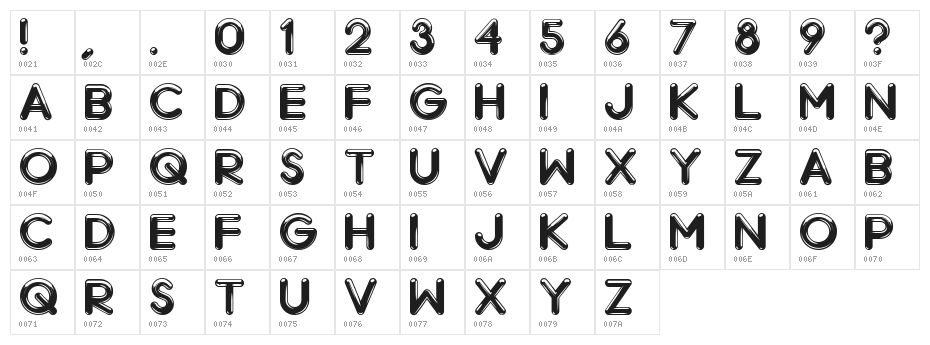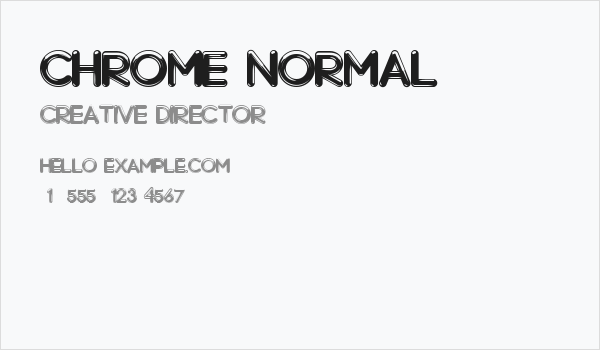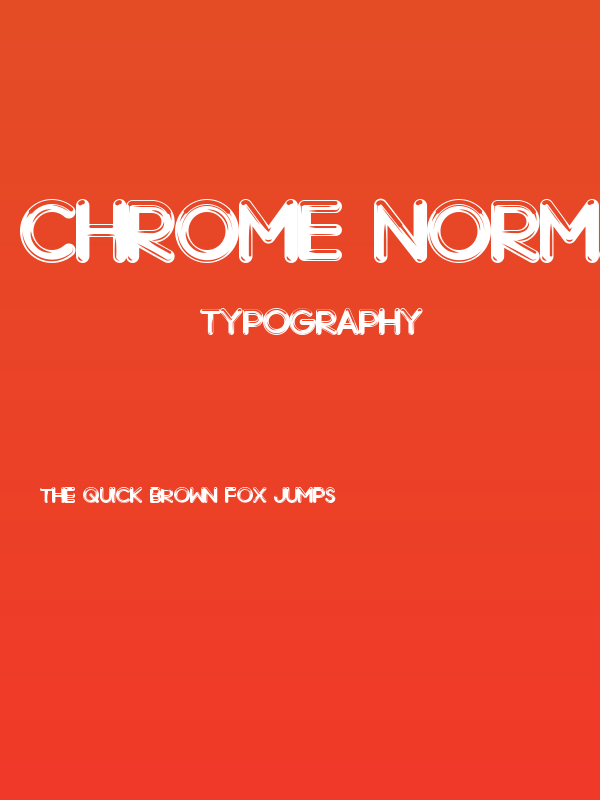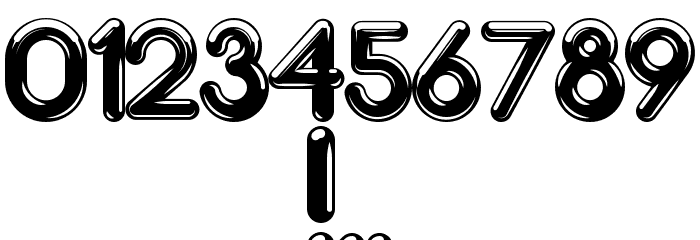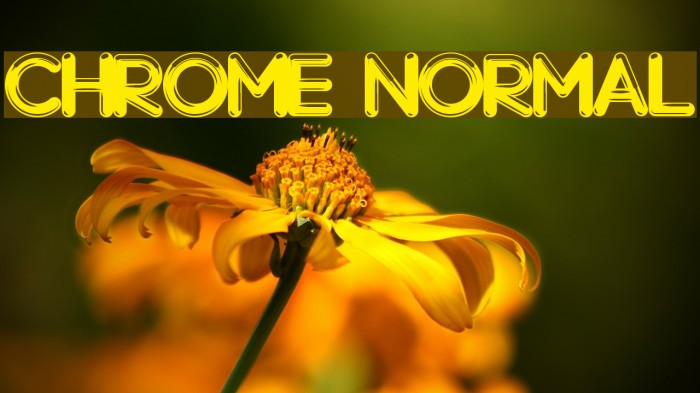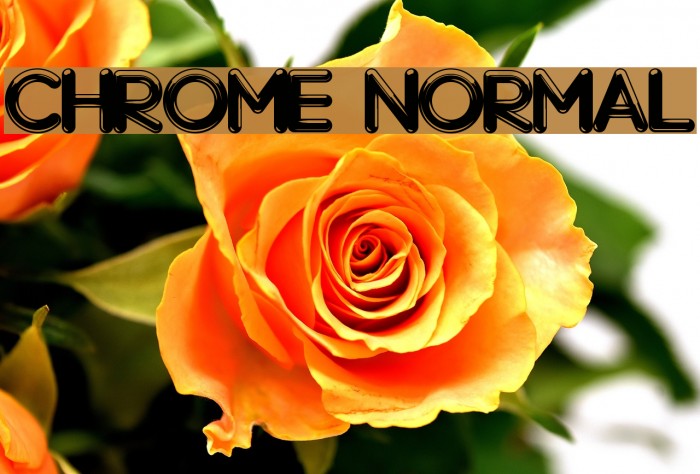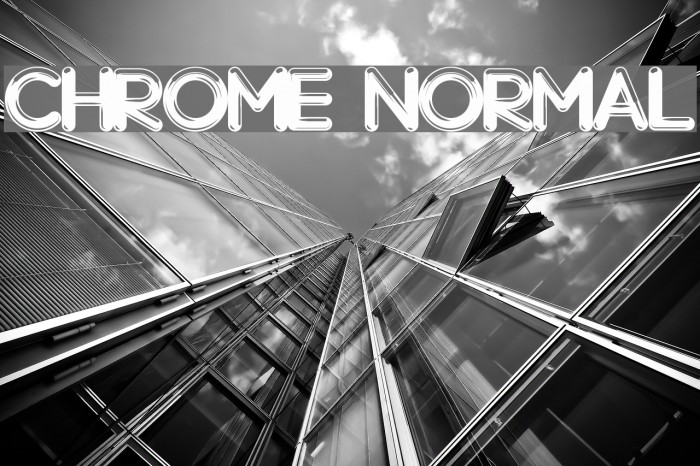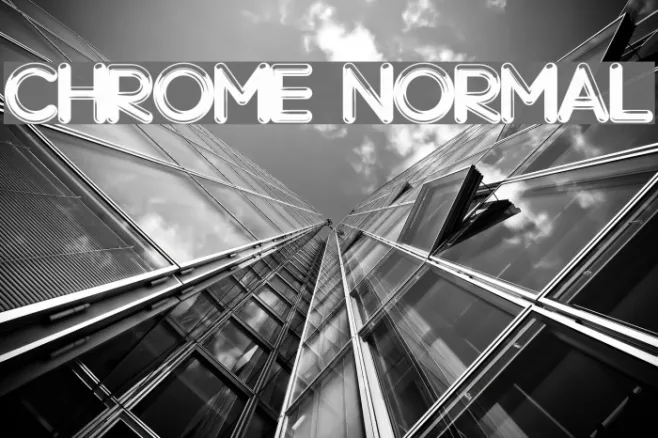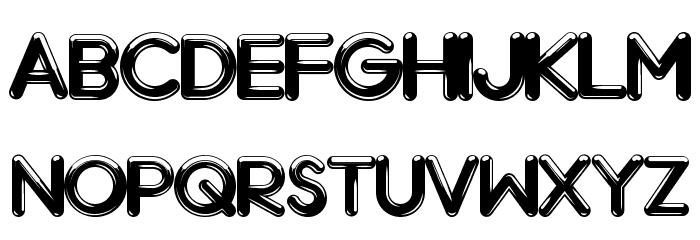
Chrome Normal Font
Chrome Normal Description
This font features a bold and striking design with a three-dimensional chrome effect that gives it a shiny, metallic appearance. The characters are uppercase and numerals, with a smooth, rounded structure that enhances the reflective quality. The font has a modern and futuristic vibe, making it ideal for projects that require a strong visual impact. The characters are evenly spaced, providing a balanced and cohesive look. The overall style is decorative and eye-catching, suitable for attention-grabbing headlines or logos.
| Proposed Projects | Ideal for futuristic branding, tech-related logos, event posters, and any design needing a bold, metallic look. |